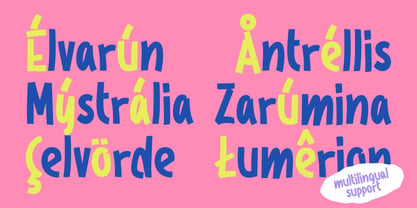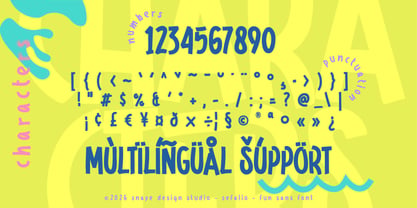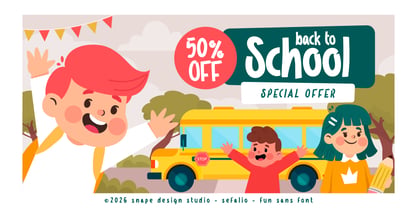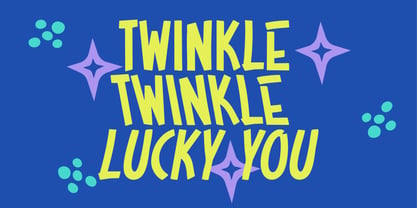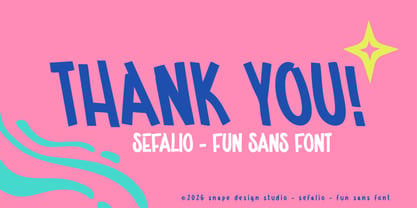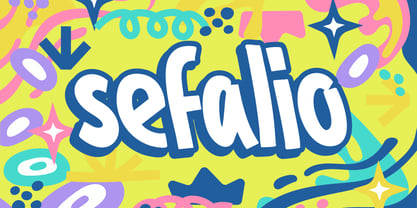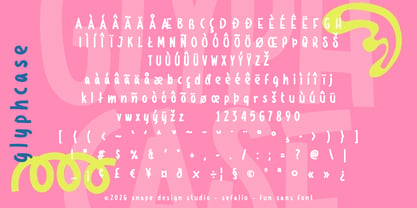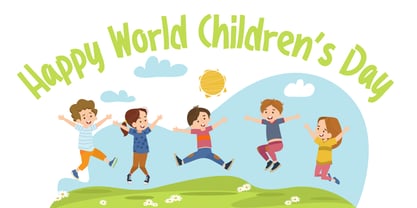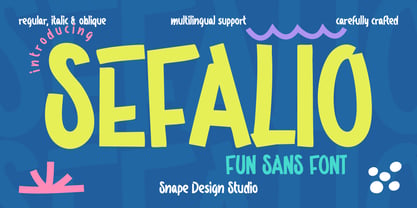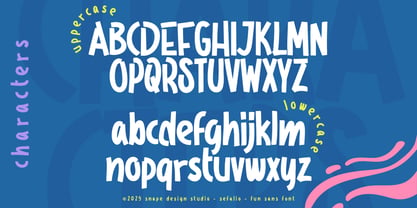
Sefalio
by snapedsgn
The Sefalio Font Family was designed by Ario Sabrang and published by snapedsgn. Sefalio contains 3 styles and family package options. More about this family
SEFALIO is a fun sans font with a bold, playful, and energetic personality. Designed to bring joy and expression into your designs, SEFALIO is perfect for posters, creative branding, headlines, kids designs, social media graphics, and eye catching editorial projects. It comes in regular, italic, and oblique styles with multilingual support, making it a versatile choice for modern, friendly, and vibrant visual communication. If you have any inquiries or need assistance, please feel free to contact us. We appreciate your support in enhancing your creative projects! Best Regards, Snape Design Studio.
Designers: Ario Sabrang
Foundry: snapedsgn